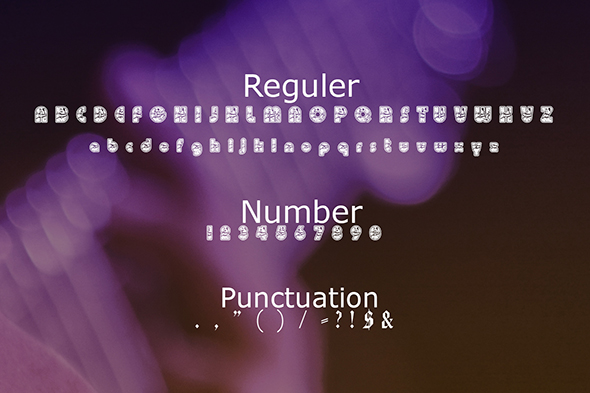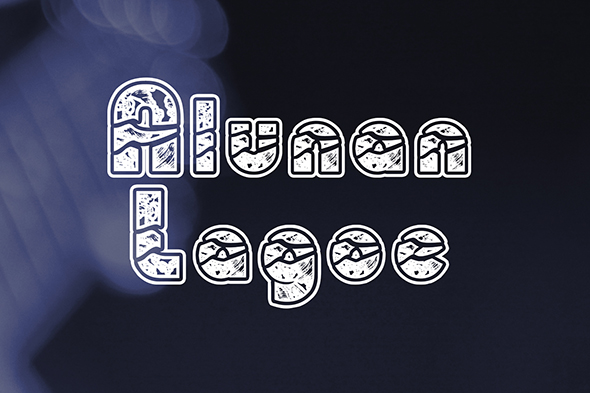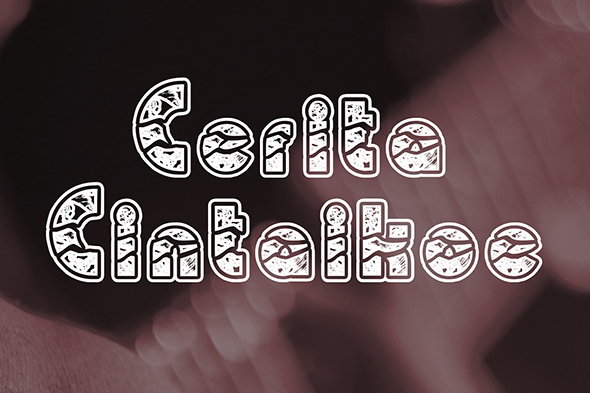
Discover the Unique Charm of CloudLines Font: Elevate Your Designs with Creative Flair
Are you tired of using the same old fonts for your designs? Look no further than CloudLines, a truly unique typeface that’s perfect for those who like to be creative! CloudLines is a versatile font that can be used for various purposes, such as headlines, book covers, posters, invitations, and much more. In this article, we’ll explore the features and benefits of CloudLines, and how it can add a touch of elegance and whimsy to your designs.
The Unique Features of CloudLines Font
CloudLines is a one-of-a-kind font that boasts a distinctive, hand-drawn style. Its elegant lines and curves give it a sophisticated look that’s perfect for designs that require a touch of class. The font features a range of characters, including uppercase and lowercase letters, numbers, and punctuation marks, making it suitable for a wide range of design applications.
One of the standout features of CloudLines is its versatility. The font can be used in various sizes and styles, from large headlines to smaller body text. It’s also highly legible, making it perfect for designs that require a clear and concise message.
Uses for CloudLines Font
CloudLines is a font that’s full of possibilities. Here are just a few examples of how you can use it in your designs:
- Headlines: Use CloudLines to create eye-catching headlines that grab attention and make a statement.
- Book Covers: Add a touch of elegance to your book covers with CloudLines, perfect for fiction, non-fiction, and children’s books.
- Posters: Create stunning posters that showcase your creative work, from art exhibitions to events and promotions.
- Invitations: Make your invitations stand out with CloudLines, perfect for weddings, parties, and other special occasions.
- Branding: Use CloudLines to create a unique and memorable brand identity that sets you apart from the competition.
CloudLines offers a range of benefits for designers and crafters, including:
- Unique Style: CloudLines provides a fresh and unique style that will set your designs apart from the crowd.
- High-Quality: CloudLines is a high-quality font that’s designed to produce crisp and clear results, even at small sizes.
- Creative Freedom: With CloudLines, you have the freedom to experiment with different styles, sizes, and colors to create truly unique designs.
Tips for Using CloudLines Font
Here are a few tips for getting the most out of CloudLines:
- Experiment with Sizes: Try using CloudLines in different sizes to create visual interest and hierarchy in your designs.
- Play with Colors: CloudLines looks great in a range of colors, from bold and bright to subtle and muted.
- Mix and Match: Combine CloudLines with other fonts to create a unique and eye-catching design.
In conclusion, CloudLines is a truly unique and versatile font that’s perfect for designers and crafters who like to be creative. With its elegant lines, curves, and whimsical charm, CloudLines is sure to add a touch of elegance and sophistication to your designs. So why not give it a try and see what amazing creations you can come up with?
| Font Name | CloudLines Font |
| Author | Gblack Id |